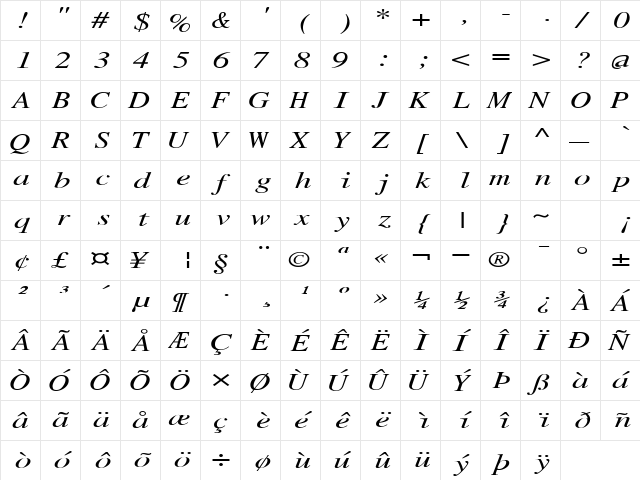
RomanMonoExtended Italic Font Preview
Design Context for RomanMonoExtended Typeface
RomanMonoExtended uses fixed-width spacing throughout, giving it the structured, systematic character associated with coding environments and technical documentation. Its italic angle brings a sense of urgency and motion to the letterforms.